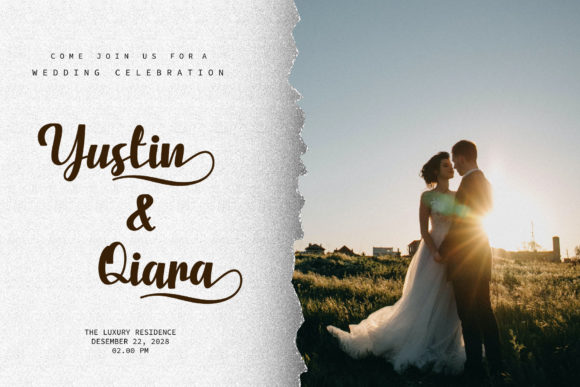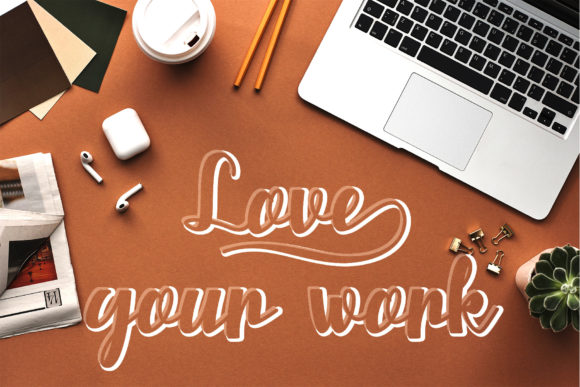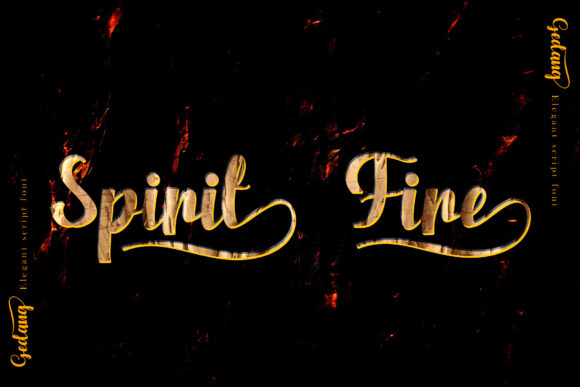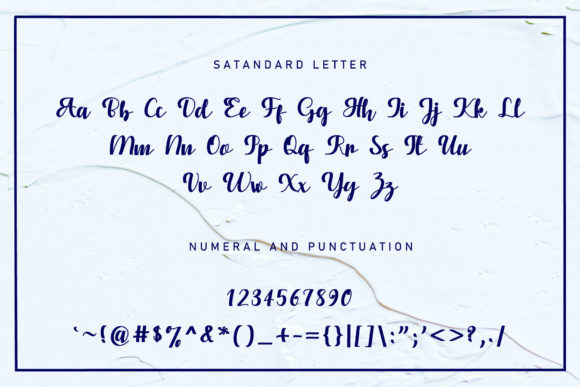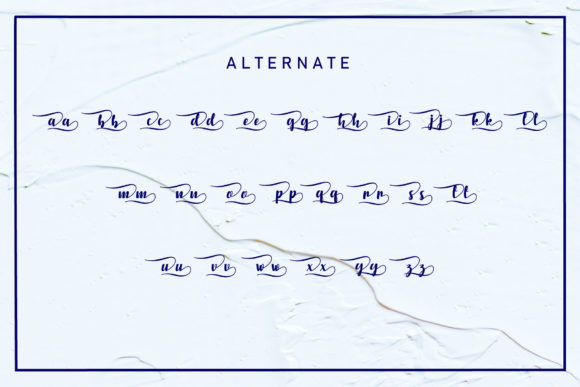
Introducing Gedang Font: The Ultimate Choice for Bold and Elegant Designs
In the world of typography, a good font can make all the difference in creating stunning designs that capture the attention of your audience. If you’re a designer or crafter looking for a font that exudes elegance and sophistication, look no further than Gedang Font. This beautifully crafted handwritten font is specifically designed for lovers of bold and elegant script fonts, making it perfect for a wide range of creative projects.
What Makes Gedang Font So Special?
Gedang Font is a versatile and stylish font that is perfect for displaying advertisements, beauty products, food products, invitations, and more. Its incredibly versatile style allows you to create spectacular designs that are sure to leave a lasting impression. Whether you’re looking to add a touch of elegance to your branding, create eye-catching packaging, or design beautiful wedding invitations, Gedang Font is the perfect choice.
One of the standout features of Gedang Font is its PUA (Private Use Area) encoding. This means that you can access all of the glyphs and swashes with ease, giving you complete creative control over your designs. With PUA encoding, you can effortlessly navigate the font’s extensive character set, including alternative letters, ligatures, and ornaments, to create truly unique and stunning designs.
The Benefits of Using Gedang Font
So why choose Gedang Font for your next design project? Here are just a few benefits of using this amazing font:
- Versatility: Gedang Font is incredibly versatile, making it perfect for a wide range of creative projects, from advertising and branding to packaging and invitations.
- Elegance: With its bold and elegant script style, Gedang Font adds a touch of sophistication to any design.
- Easy to use: Gedang Font is PUA encoded, making it easy to access all of the glyphs and swashes.
- High-quality design: Gedang Font is carefully crafted to ensure that it looks amazing in any design.
How to Use Gedang Font in Your Designs
Using Gedang Font in your designs is easy. Here are a few tips to get you started:
- Choose the right project: Gedang Font is perfect for a wide range of creative projects, including advertising, branding, packaging, and invitations.
- Experiment with different styles: With its extensive character set and PUA encoding, Gedang Font offers endless possibilities for creative experimentation.
- Pair it with other fonts: Gedang Font pairs beautifully with other fonts, making it easy to create stunning font combinations.
- Have fun: Most importantly, have fun with Gedang Font! Its versatility and elegance make it the perfect choice for designers and crafters who want to create something truly special.
In conclusion, Gedang Font is a must-have for designers and crafters who want to create stunning designs that exude elegance and sophistication. With its bold and elegant script style, PUA encoding, and versatility, Gedang Font is the perfect choice for a wide range of creative projects. Whether you’re looking to create eye-catching advertisements, beautiful invitations, or stunning packaging, Gedang Font is sure to impress. So why wait? Fall in love with Gedang Font today and take your designs to the next level!
- Handwritten font with bold and elegant script style
- Perfect for advertising, branding, packaging, and invitations
- Incredibly versatile and easy to use
- High-quality design with extensive character set